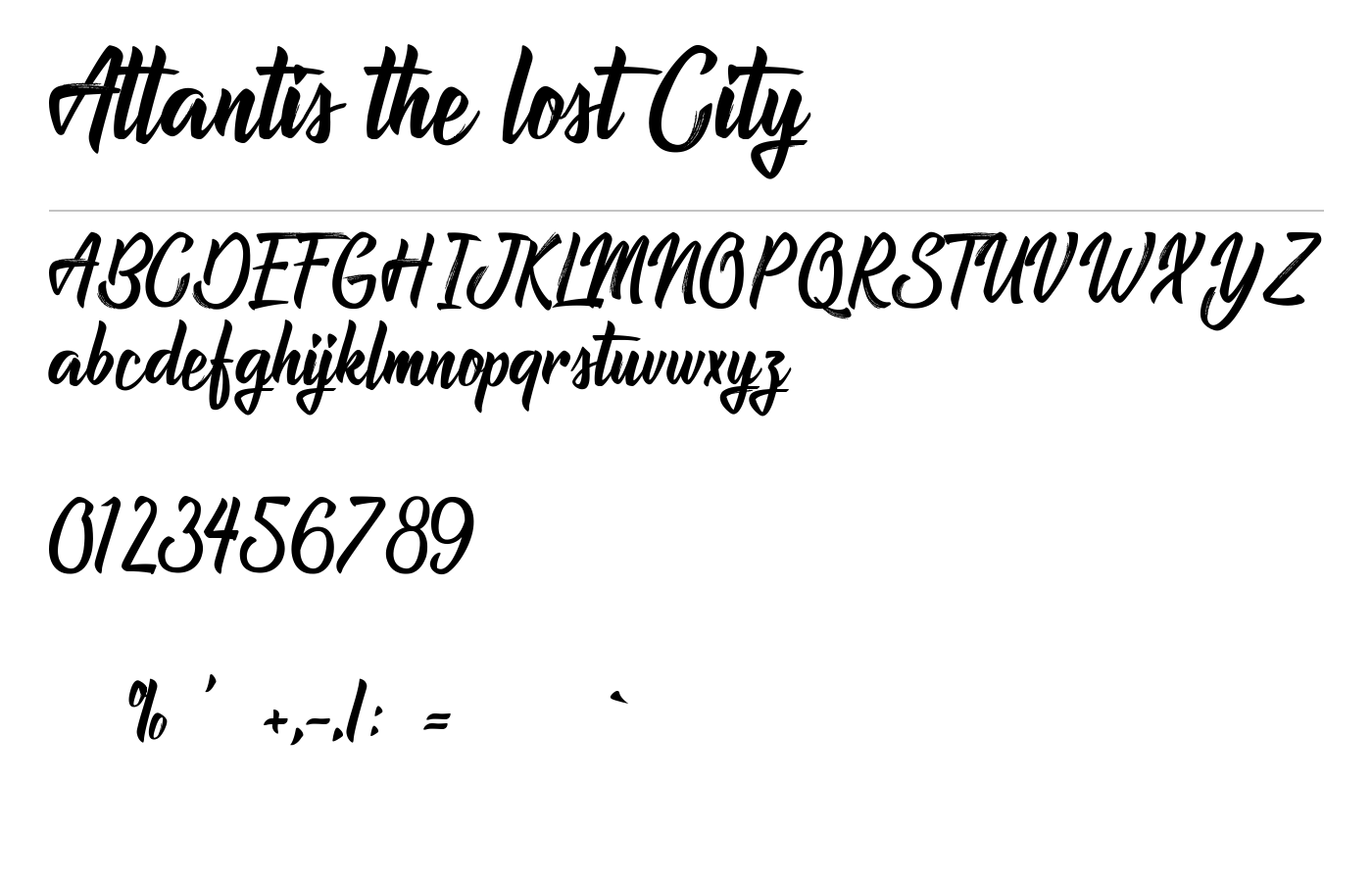
Atlantis the Lost City is a lively and expressive script font featuring smooth, brush-like strokes that give it an energetic and handcrafted feel. With its slightly condensed letterforms and dynamic flow, it conveys a modern yet approachable personality, making it ideal for creative branding, invitations, and eye-catching headlines. This font works well where a casual yet stylish touch is needed, adding warmth and a personal vibe to various design projects.
Atlantis the lost City Font
About Atlantis the lost City Font
| Font family | Atlantis the lost City Font |
| Designer | Octotype |